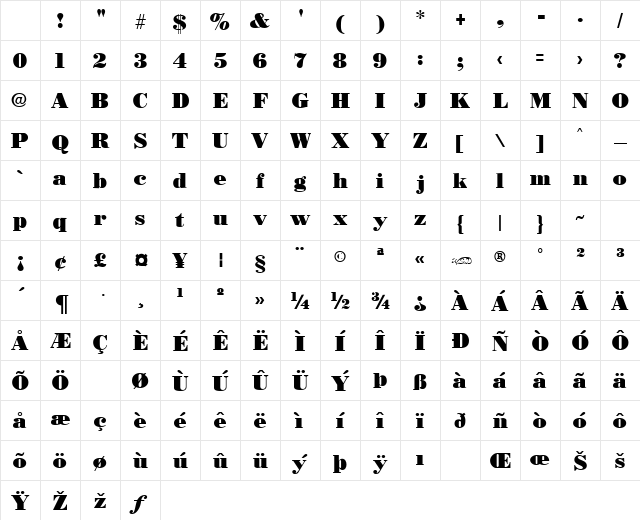
BostonBlack Regular
BostonBlack Family
Design Context for BostonBlack
BostonBlack is a composed and adaptable typeface that performs quietly and consistently across a wide range of design contexts.
Pro Tip: Use BostonBlack in both headline and body roles to test its range before committing to a single application.